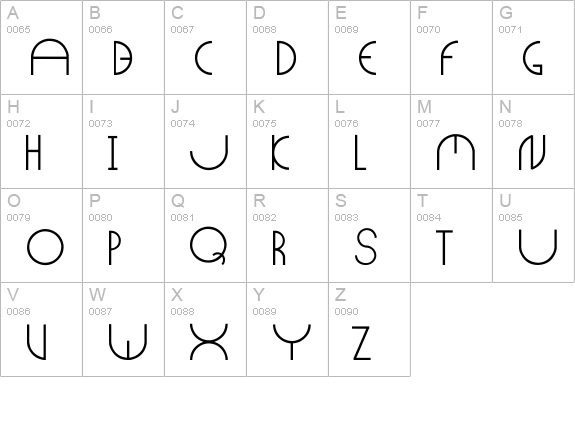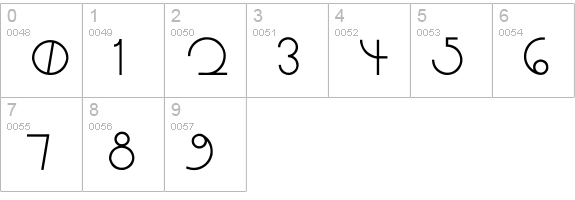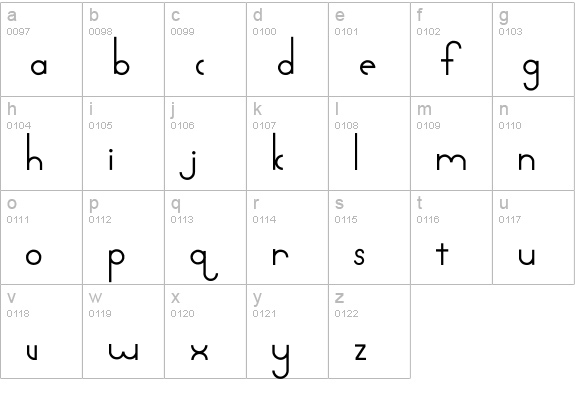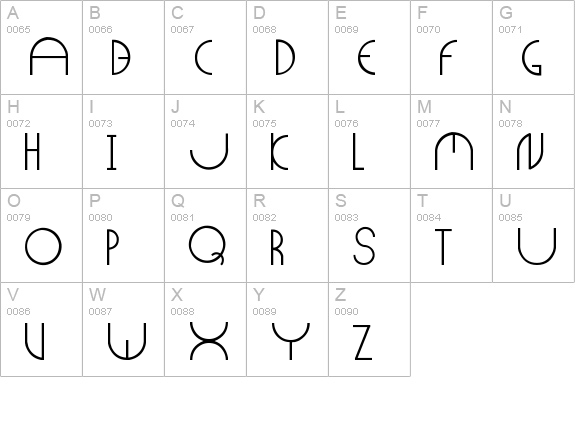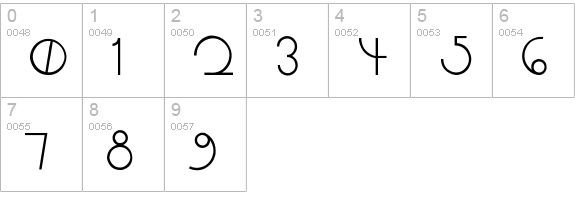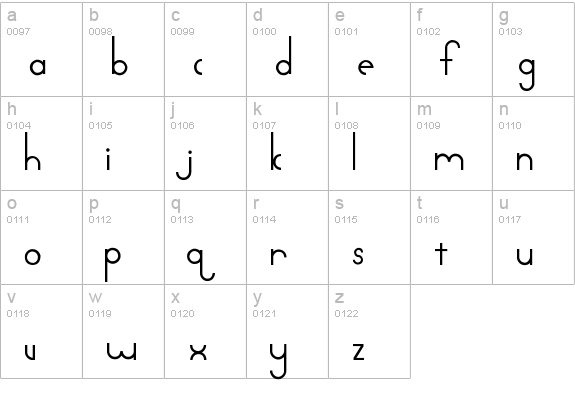
Arctic Font Details
The Arctic font is a stunning display typeface that evokes the icy beauty and minimalist elegance of the Arctic landscape. With its clean lines and sharp angles, this font is perfect for adding a touch of modern sophistication to your designs. The Arctic font is versatile and can be used for a variety of projects, from branding to editorial design. Best of all, the Arctic font is available for free download at FontsMarket.com. Whether you're a professional designer looking to add a fresh new font to your collection or a hobbyist looking to experiment with typography, the Arctic font is a great choice. Download it today and let your creativity soar with this sleek and stylish typeface.